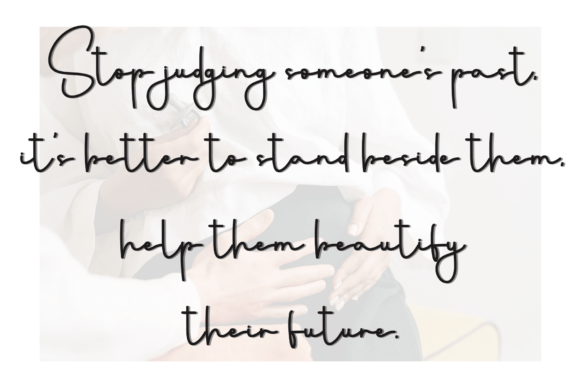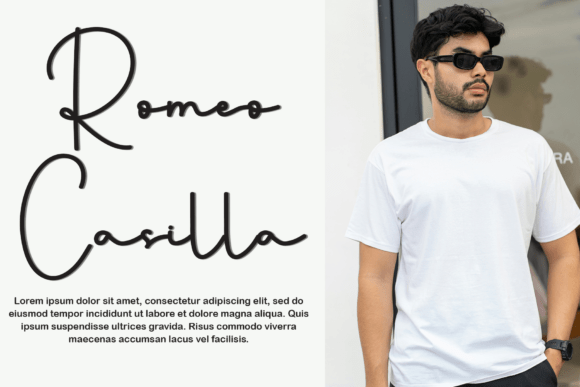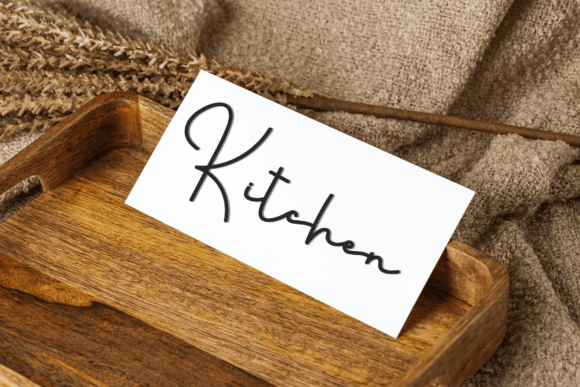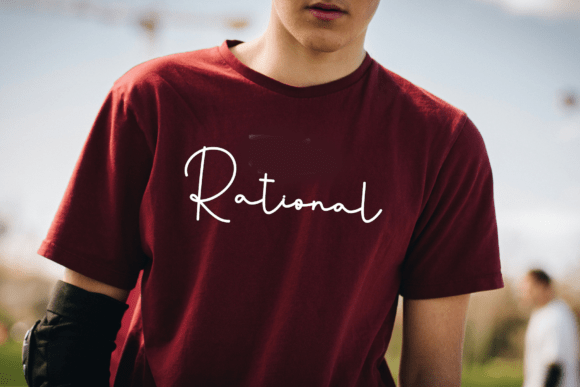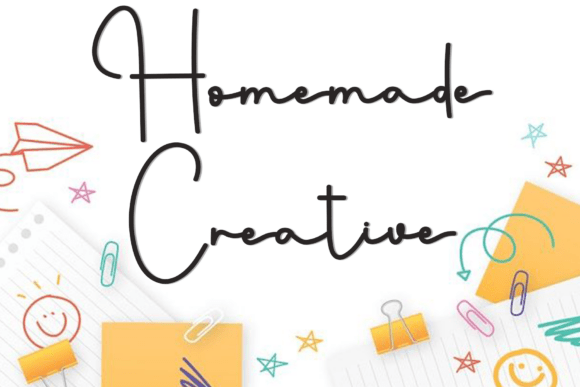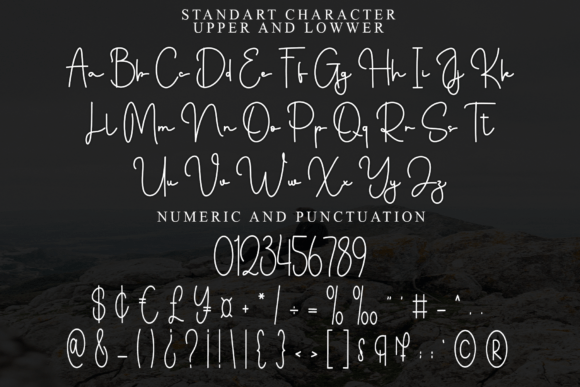
Introduction to Northern Font Font
Fonts play a crucial role in design, and the Northern Font font is a typeface that brings both character and versatility to any project. Whether you’re working on a branding project, a website, or a print design, the Northern Font font offers a unique style that can elevate your work.
Ride the wave of effortless style with Northern, a breezy monoline script that captures a “coastal-and-carefree” soul.
This font features elegant, hand-drawn letterforms characterized by rhythmic, sweeping ascenders and a fluid, connected structure that mimics the natural flow of a signature on a postcard With its light structural weight and relaxed personality, Northern is the premier choice for independent surf-lifestyle branding, tropical resort identities, summer event invitations, and high-impact “sun-drenched-and-spontaneous” social media headers.
Key Features of Northern Font Font
Why Choose Northern Font Font?
The Northern Font font is more than just a typeface – it’s a design tool that helps you communicate your message with style and clarity. Its unique character set and versatile design make it suitable for a wide range of applications, from elegant invitations to bold headlines.
With its carefully crafted letterforms and balanced proportions, the Northern Font font ensures readability and visual appeal across all mediums.
What makes Northern Font font special?
The Northern Font font stands out with its unique design, exceptional readability, and versatility across various design applications.